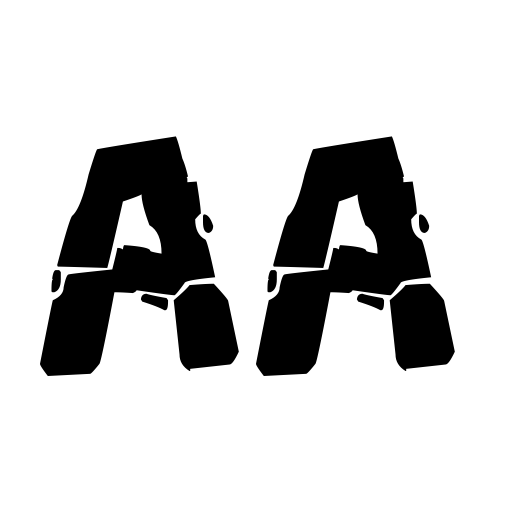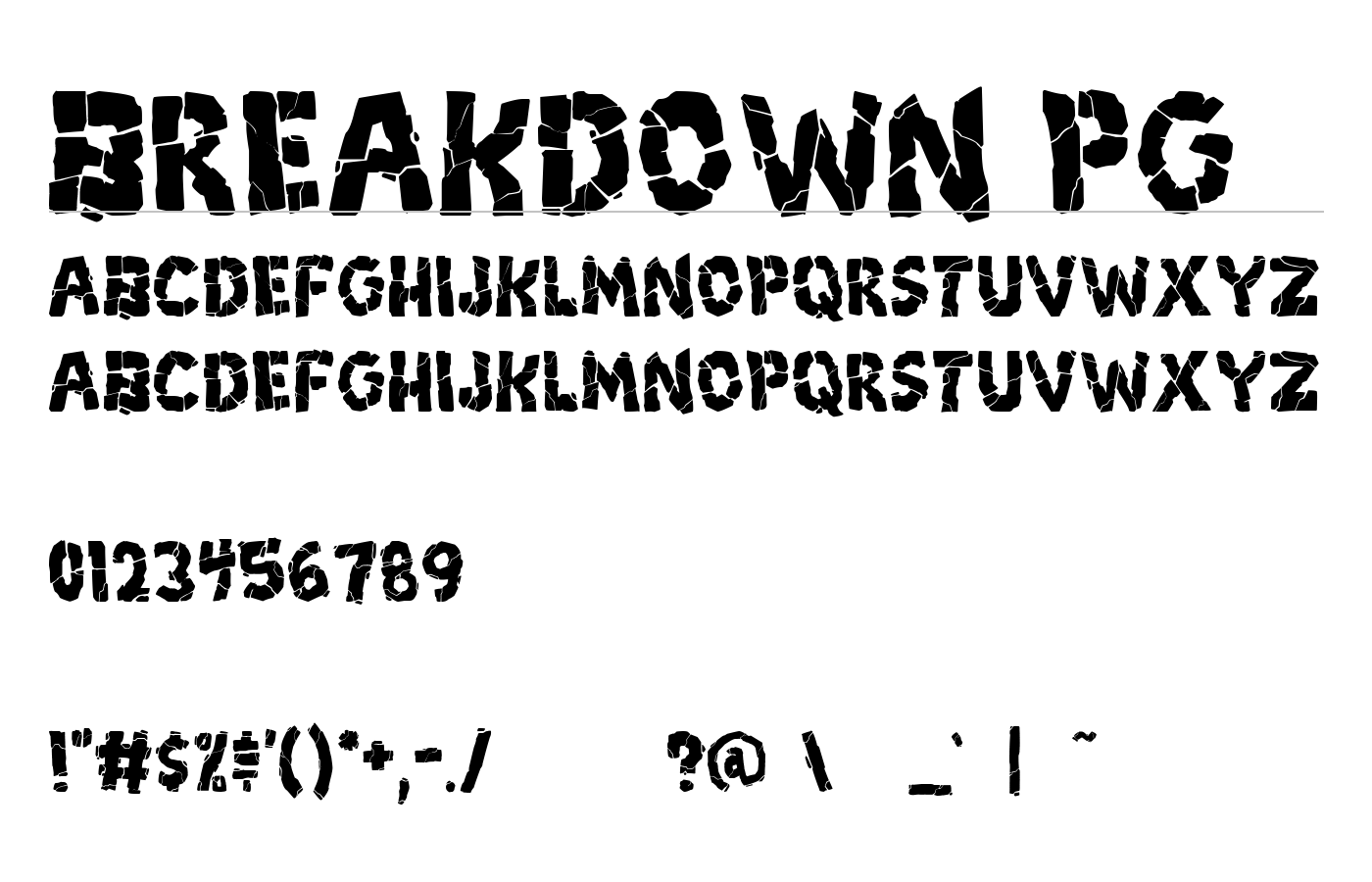
Breakdown PG is a bold, condensed sans serif font with a distressed and fractured appearance that gives it a gritty, urban feel. Its heavy weight combined with the broken, irregular shapes creates a sense of raw energy and disruption, making it ideal for edgy, rebellious designs like posters, logos, or branding that wants to stand out with a rough, impactful style. This font works particularly well in headlines and display use where its unique texture can grab attention and convey a bold, unconventional personality.
Breakdown PG Font
About Breakdown PG Font